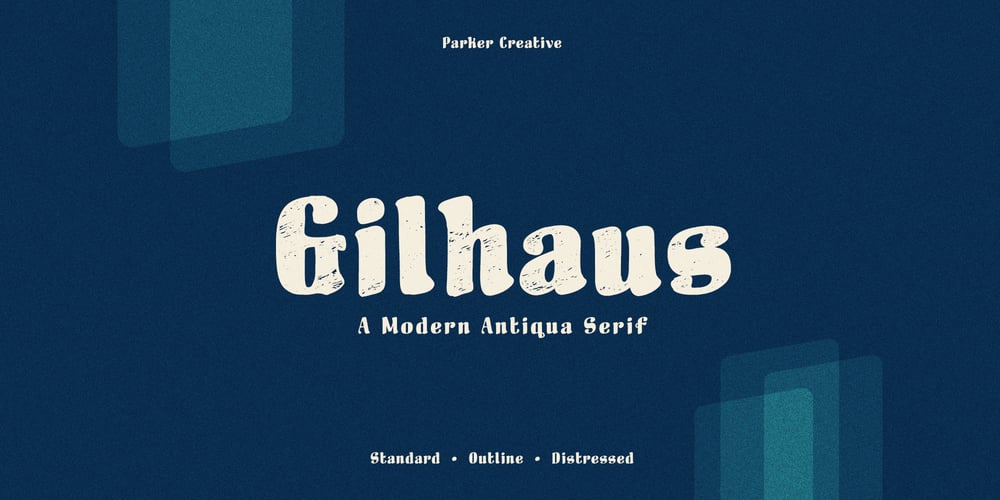
Gilhaus Font Family was designed by Alan Parker and published by Parker Creative. Gilhaus contains 3 styles and family package options. Inspired by the classic German Antiqua style, Gilhaus is a totally original modern serif rooted in iconic history and built for modern projects including branding, web and digital apps, large format printing, and more. While subtle serifs and soft edges bring in an element of warmth and approachability, Gilhaus is balanced out by the bold angular strokes and high contrast letterforms typically found in classic Antiqua typography.